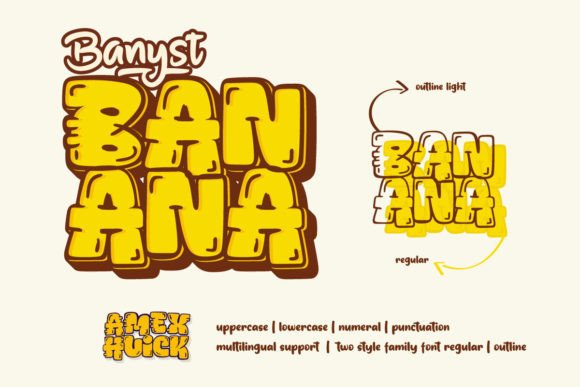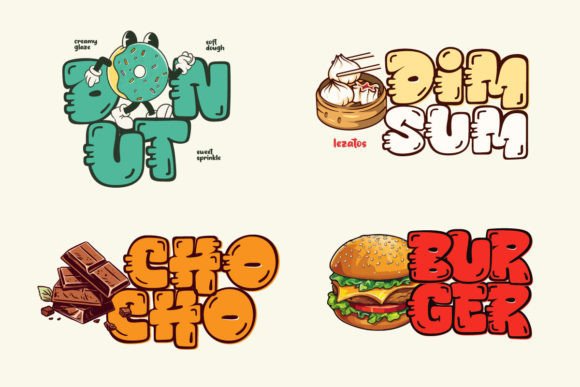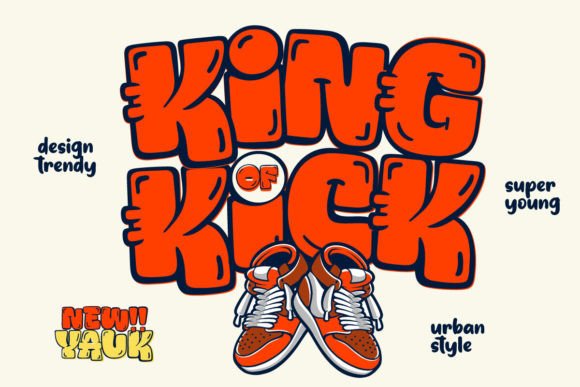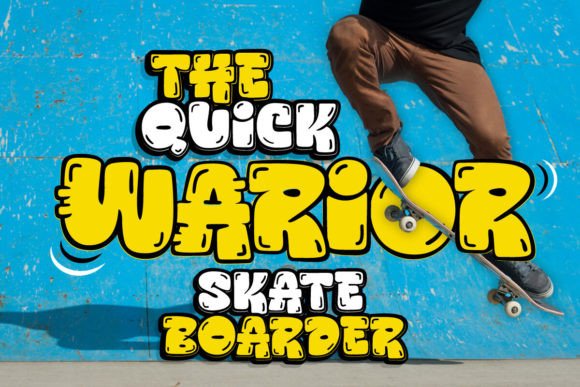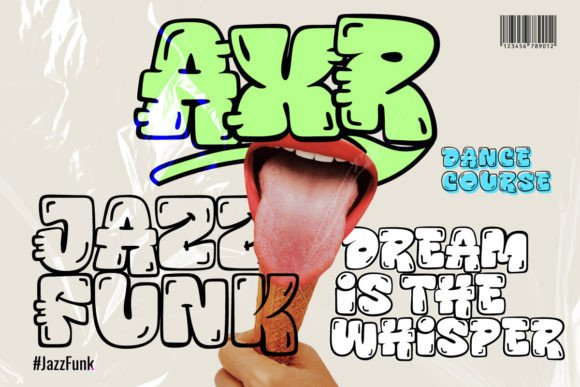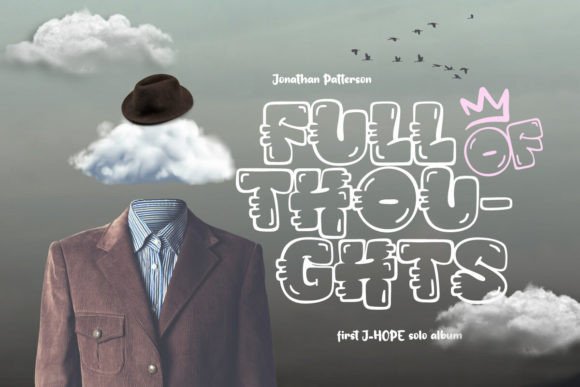
Unleash Your Creativity with Amex Huick: The Ultimate Display Graffiti Font
Are you a designer or craft looking for a font that can add a touch of urban grit and edginess to your projects? Look no further than Amex Huick, a dynamic display graffiti font that is sure to take your designs to the next level. With its two versatile styles – Regular and Outline Light – Amex Huick is perfect for street art-inspired designs, edgy branding, urban posters, and more.
The Inspiration Behind Amex Huick
Amex Huick is a font that is deeply rooted in graffiti culture. Each character is designed to mimic the fluid strokes and vibrant spirit of graffiti, making your text stand out with an unmistakable urban flair. The font’s creator was inspired by the raw energy and boldness of graffiti art, and sought to capture that essence in a font that would be both versatile and eye-catching.
Key Features of Amex Huick
- Two versatile styles: Amex Huick comes in two styles – Regular and Outline Light – giving you the flexibility to choose the look that best suits your project.
- Dynamic display font: With its bold and edgy design, Amex Huick is perfect for making a statement in your designs.
- Graffiti-inspired design: Each character is designed to mimic the fluid strokes and vibrant spirit of graffiti, giving your text an unmistakable urban flair.
- Perfect for street art-inspired designs: Amex Huick is ideal for designers who want to add a touch of urban grit to their projects.
Use Cases for Amex Huick
Amex Huick is a versatile font that can be used in a variety of design projects, including:
- Street art-inspired designs: Use Amex Huick to add a touch of urban grit to your designs, from posters to flyers.
- Edgy branding: Amex Huick is perfect for brands that want to make a bold statement and stand out from the crowd.
- Urban posters: Use Amex Huick to create eye-catching posters that capture the energy and excitement of urban culture.
- Social media graphics: Amex Huick is a great choice for social media graphics, from Instagram posts to Facebook headers.
Tips for Using Amex Huick
Here are a few tips for getting the most out of Amex Huick:
- Experiment with different colors: Amex Huick looks great in bold, bright colors that really make the font pop.
- Play with different styles: Try combining Amex Huick with other fonts to create a unique look that really stands out.
- Use it sparingly: Amex Huick is a bold font, so use it sparingly to really make an impact.
Amex Huick is a dynamic display graffiti font that is sure to add a touch of urban grit and edginess to your designs. With its two versatile styles and graffiti-inspired design, Amex Huick is perfect for designers who want to make a bold statement. Whether you’re working on a street art-inspired design, edgy branding, or urban posters, Amex Huick is the perfect choice. So why wait? Unleash your creativity with Amex Huick today!